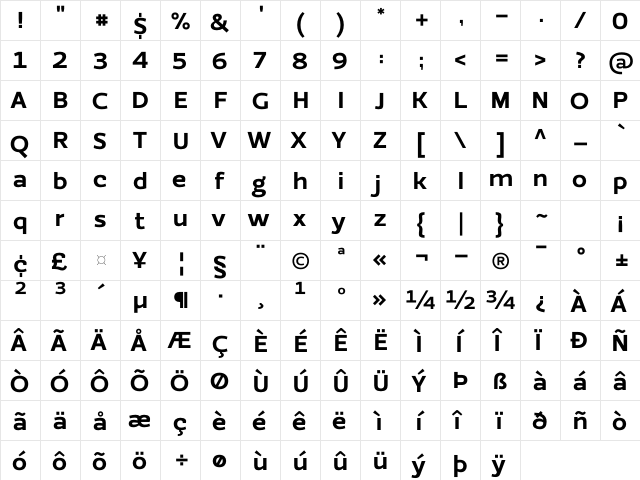
EzzoBlack Regular Font Preview
EzzoBlack Regular
EzzoBlack Regular Font Details
| Foundry | Dino dos Santos _DSType |
Design Context for EzzoBlack Typeface
EzzoBlack is a composed and adaptable typeface that performs quietly and consistently across a wide range of design contexts.